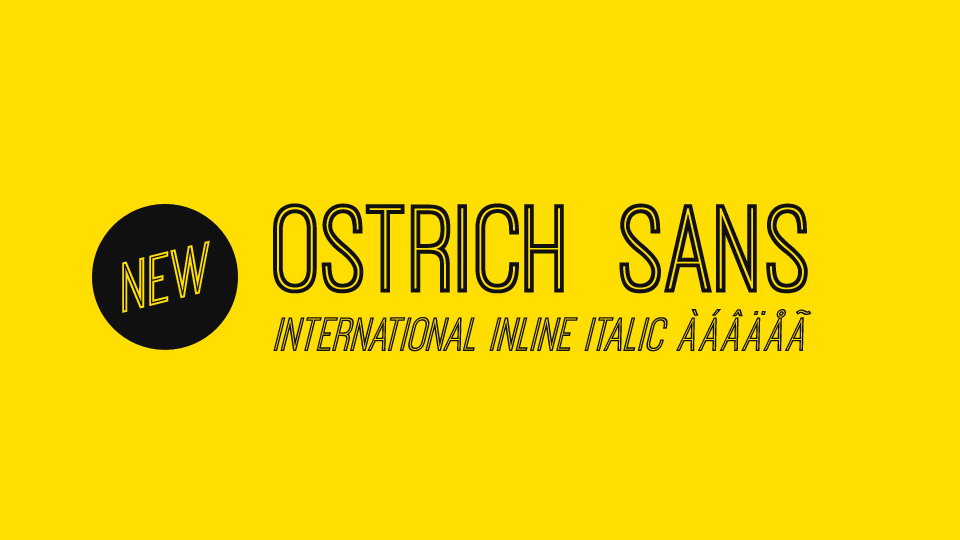
Download Ostrich Sans font family, a gorgeous modern sans serif with a very long neck. Ostrich Sans is perfect for display purposes, headlines and posters, attractive messages, banners, prints, graphics and other creative projects.
Designer: Tyler Finck